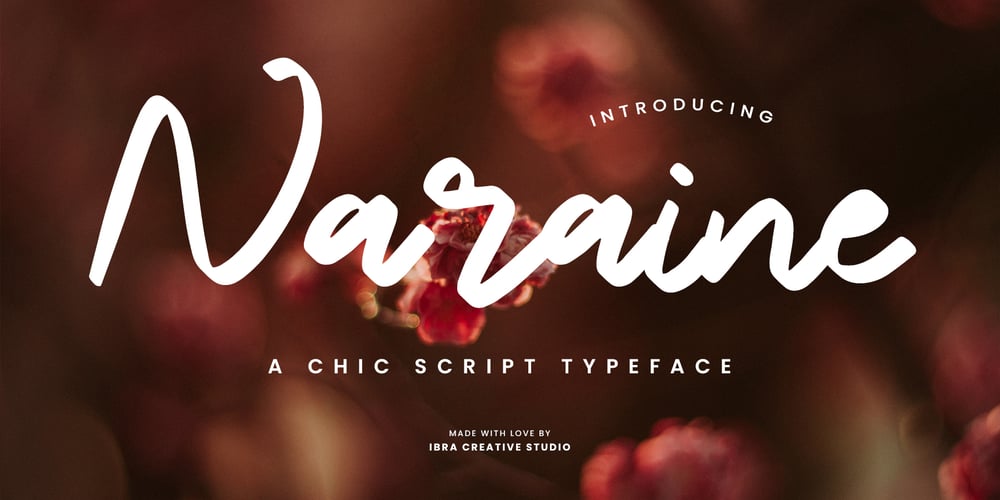
Naraine Font Family was designed by Roisatul Azizah and published by IbraCreative. Naraine contains 1 styles and family package options. Naraine – A Chic Script TypefaceNaraine, a chic script typeface, epitomizes sophistication and elegance with its graceful flourishes and fluid lines. Each letter in Naraine exudes a sense of refined charm, perfect for adding a touch of luxury to invitations, branding, or editorial designs. Whether used for high-end fashion labels or upscale event invitations, Naraine effortlessly captures attention and elevates any project with its timeless style and exquisite detailing, making it a go-to choice for designers seeking to infuse their creations with a sense of chic allure.Naraine is perfect for branding projects, logo, wedding designs, social media posts, advertisements, product packaging, product designs, label, photography, watermark, invitation, stationery, game, fashion and any projects.Fonts include multilingual support for; Afrikaans, Albanian, Czech, Danish, Dutch, English, Estonian, Finnish, French, German, Hungarian, Italian, Latvian, Lithuanian, Norwegian, Polish, Portuguese, Slovak, Slovenian, Spanish, Swedish.